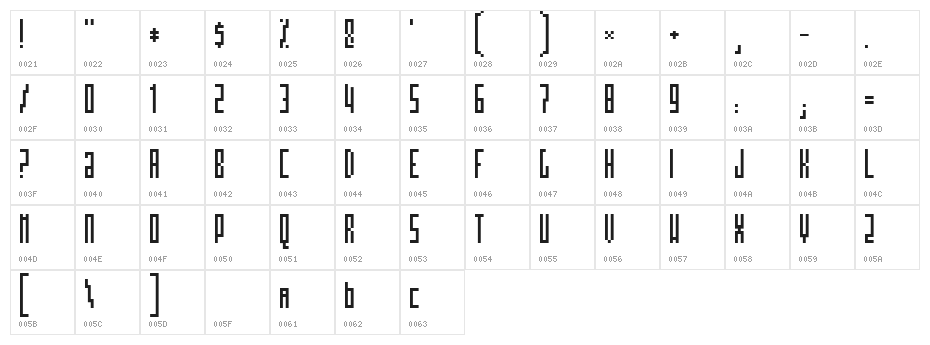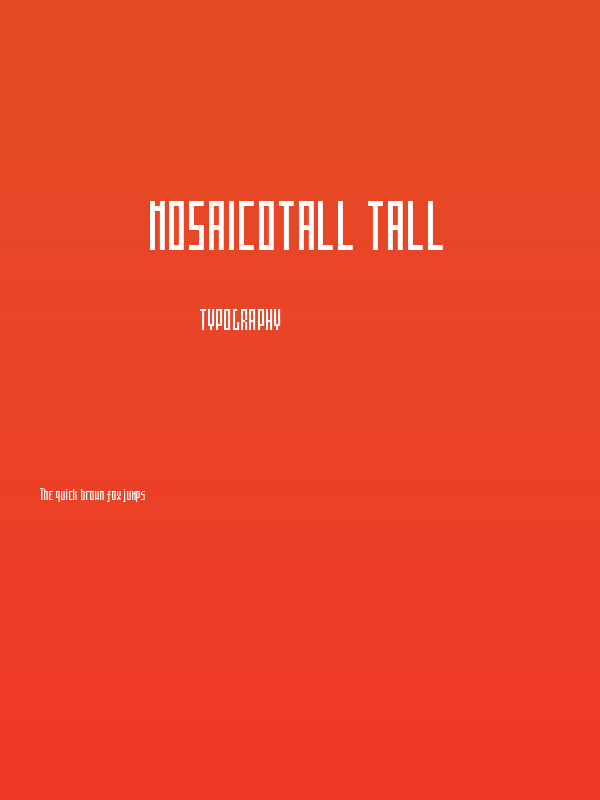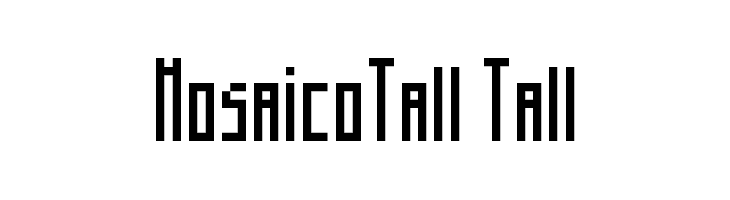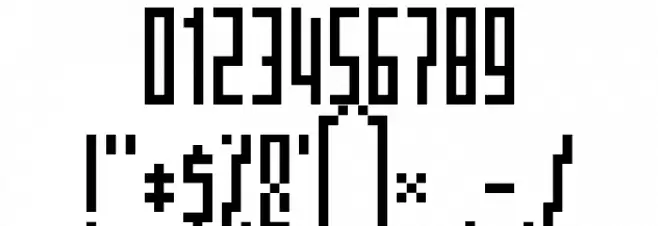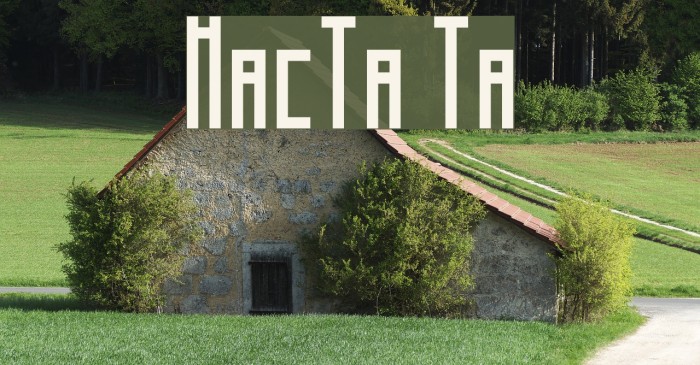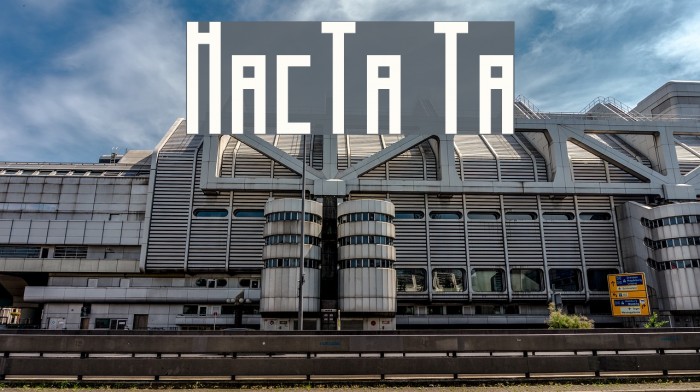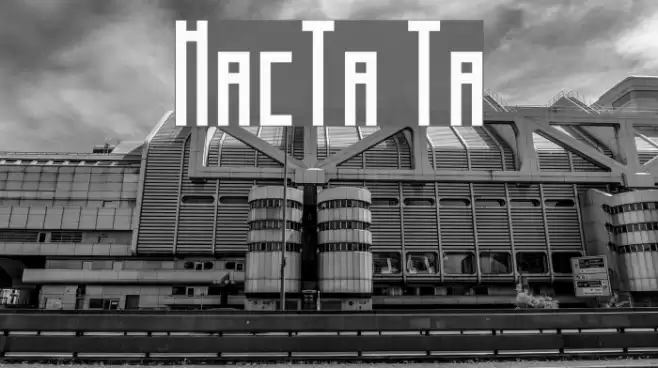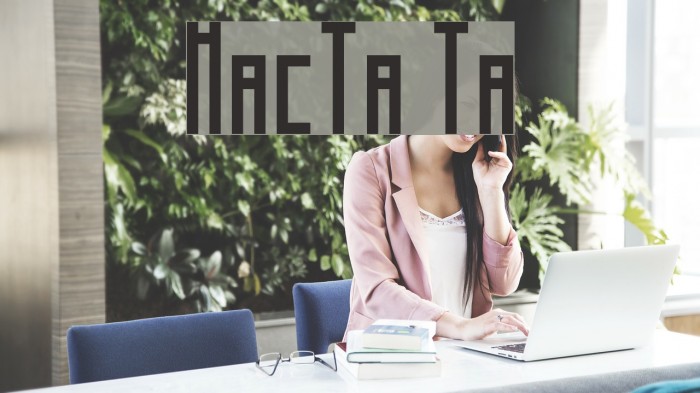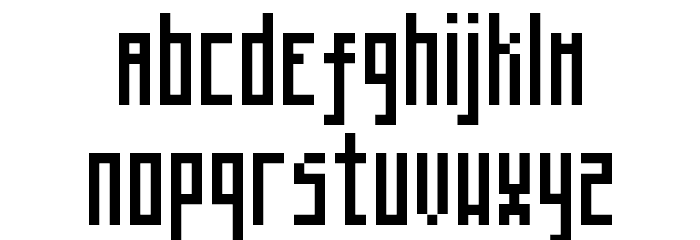
MosaicoTall Tall Font
MosaicoTall Tall Description
This font features a distinct, geometric style with tall, narrow characters that create a modern and digital aesthetic. The characters are constructed with uniform stroke widths, giving it a monospaced appearance. The uppercase letters are particularly elongated, while the lowercase letters maintain a consistent height that complements the overall design. The numerals and special characters follow the same structured form, enhancing the cohesive look. This font's pixelated, grid-like structure makes it ideal for digital displays or projects that require a futuristic or tech-inspired feel.
| Width | Condensed |
| Use Case | Logos, Headlines, Digital interfaces |
| Proposed Projects | Ideal for digital displays, tech branding, video game interfaces, and futuristic design projects. |